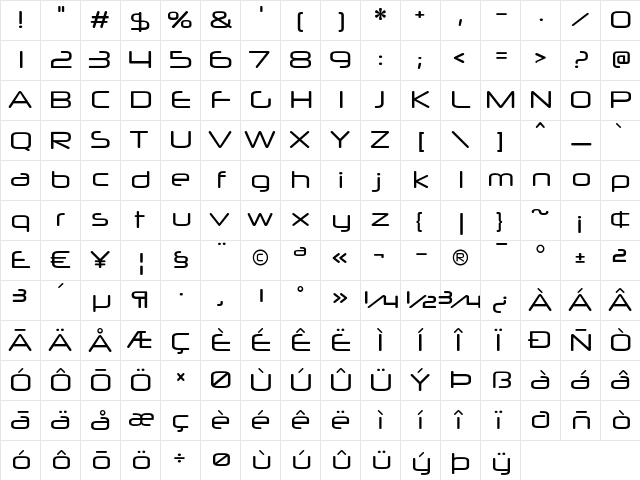
Neuropol X Regular
Design Context for Neuropol X Typeface
Neuropol X offers clean, dependable letterforms without strong stylistic allegiance, making it a practical choice for designers who need flexibility.